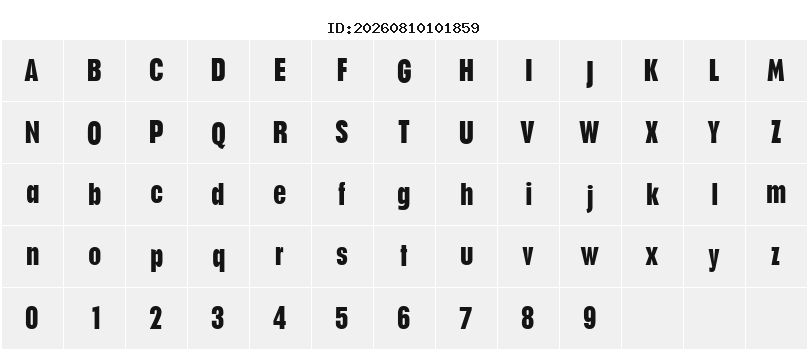
• Font Name: P760-Sans
• Designer: SoftMaker Software GmbH
About P760-Sans.ttf
P760-Sans.ttf is a modern, elegant sans-serif font designed for ultimate readability and visual harmony. Perfect for branding, headlines, web design, and print materials.